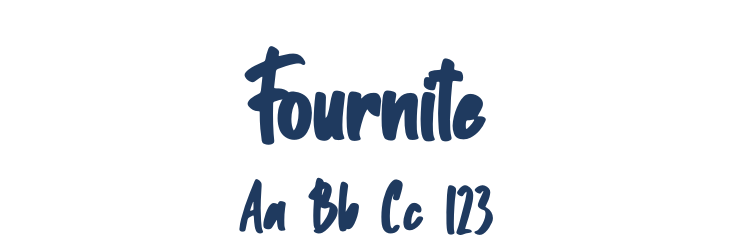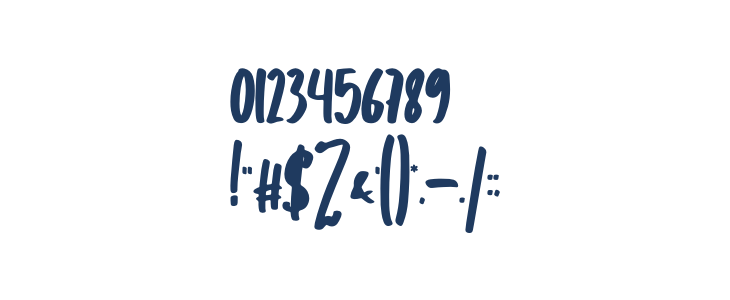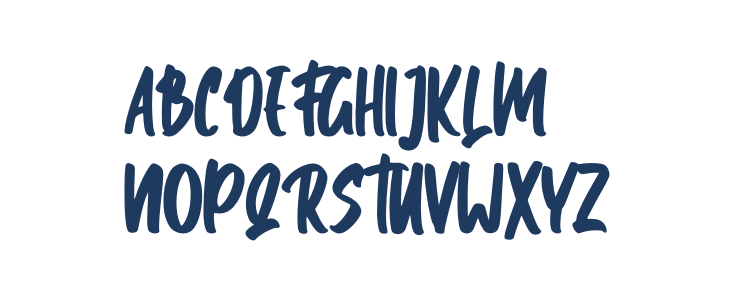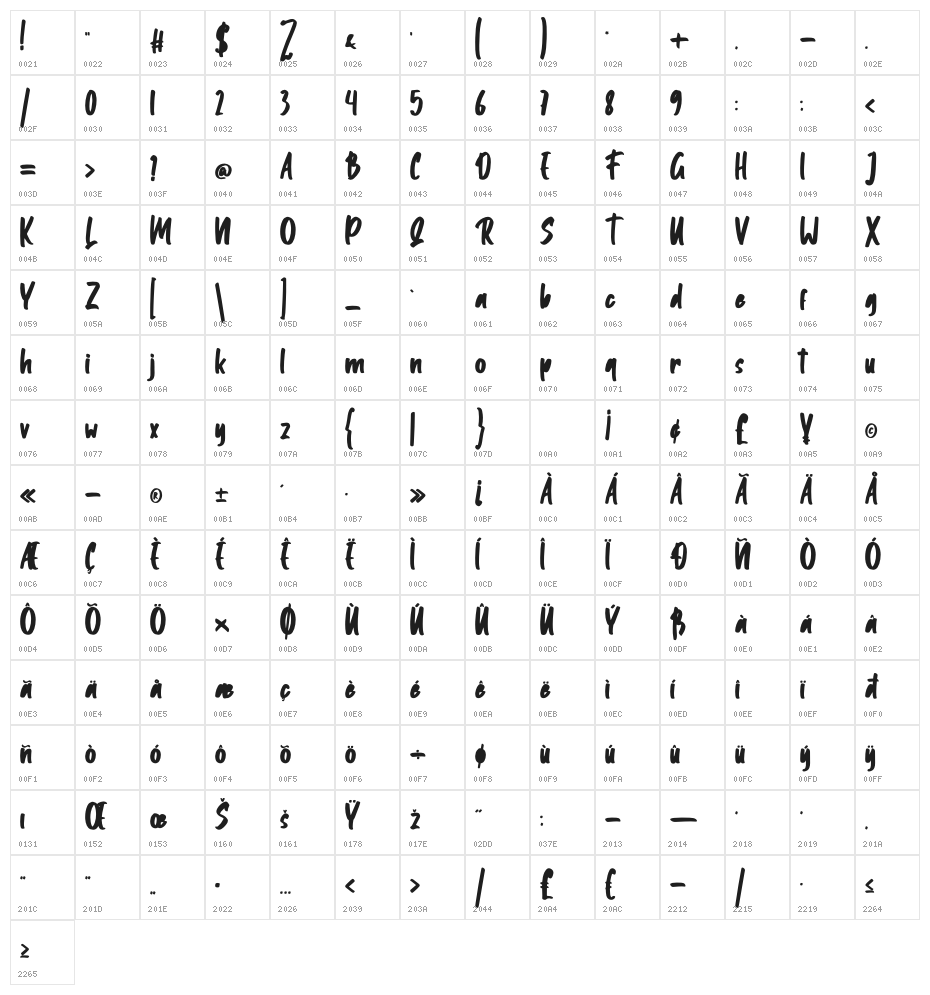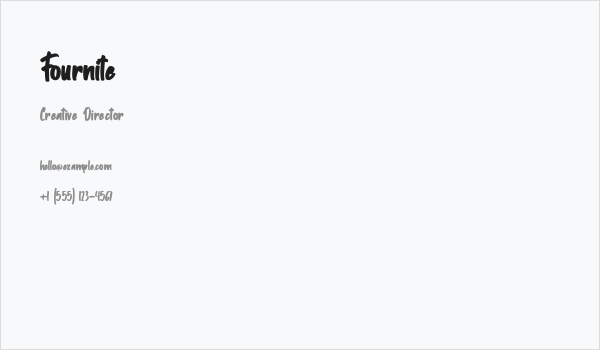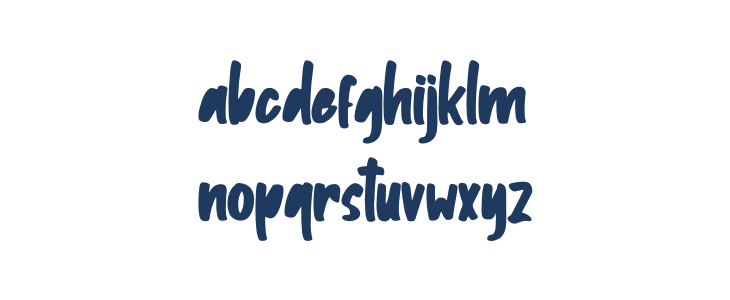
Fournite Font
A bold, playful handwritten font with thick strokes, rounded edges, and a casual, energetic appearance. The characters are slightly irregular, giving a dynamic and informal feel, while maintaining good legibility.
| Overall Style | Decorative, Playful, Modern |
| Use Case | Headlines, Logos, Posters, Social Media |
| Proposed Projects | Posters, video game graphics, youth branding, social media graphics, event flyers, merchandise. |